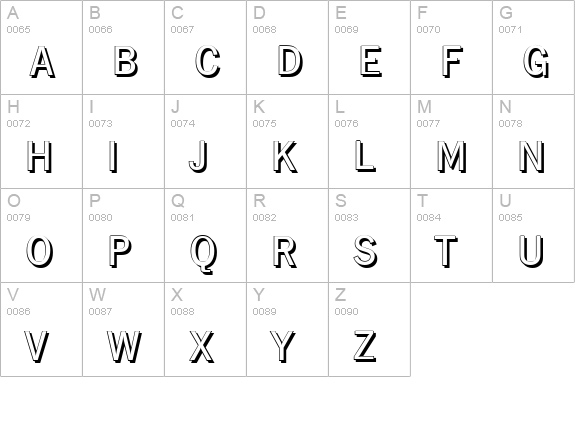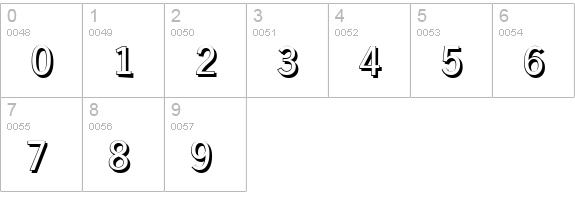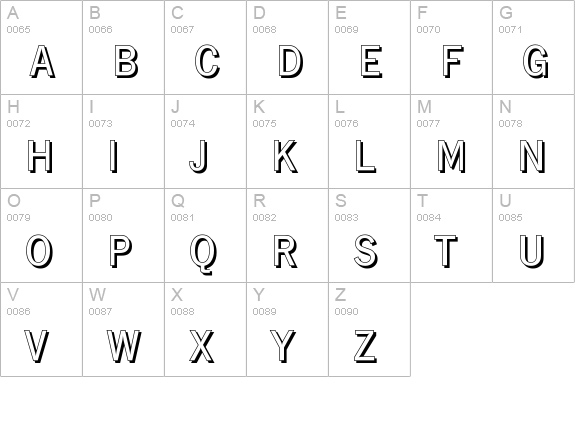
HamburgShadow-Regular Font Details
HamburgShadow-Regular is the standard, neutral variant in the HamburgShadow typeface family \xE2\x80\x94 well suited to general body text, paragraphs, and standard typographic work.
HamburgShadow-Regular is a modern and stylish font that exudes sophistication and elegance. With its sleek lines and subtle shadow effect, this typeface is perfect for adding a touch of class to any design project. Whether you're creating a logo, website, or print materials, HamburgShadow-Regular will make your text stand out with its unique and eye-catching appearance. The best part? HamburgShadow-Regular is completely free to download at FontsMarket.com. That's right, you can enhance your designs with this high-quality font without having to spend a dime. Don't miss out on the opportunity to elevate your typography game with HamburgShadow-Regular. Download it today and see the difference it can make in your projects.